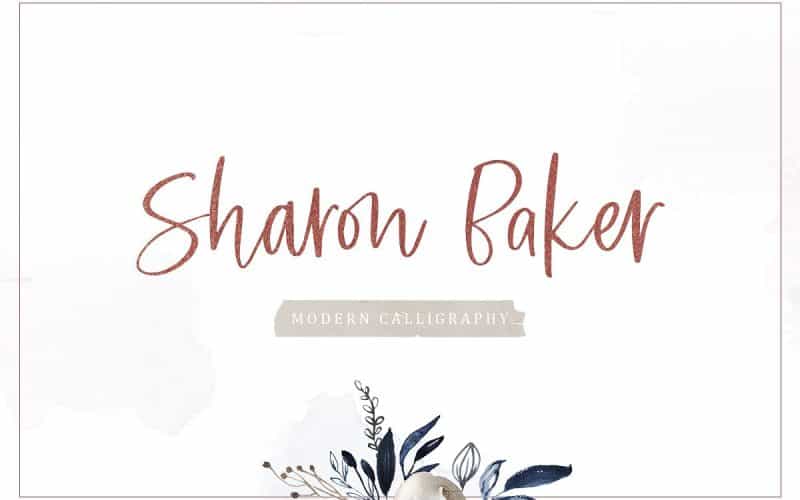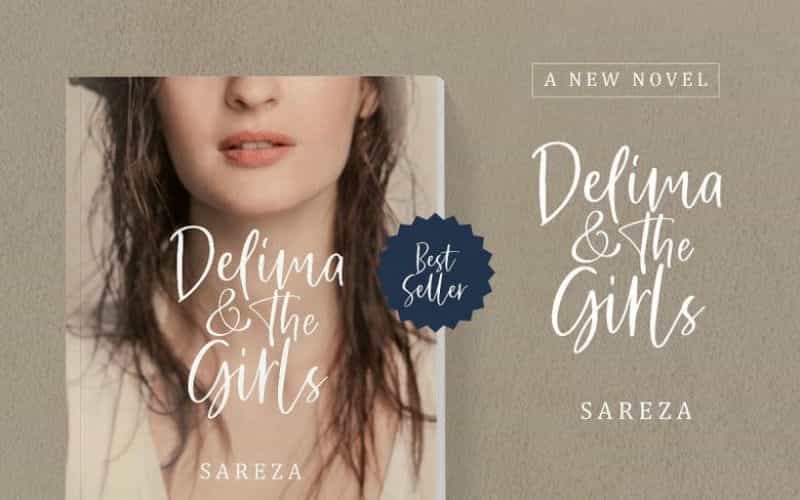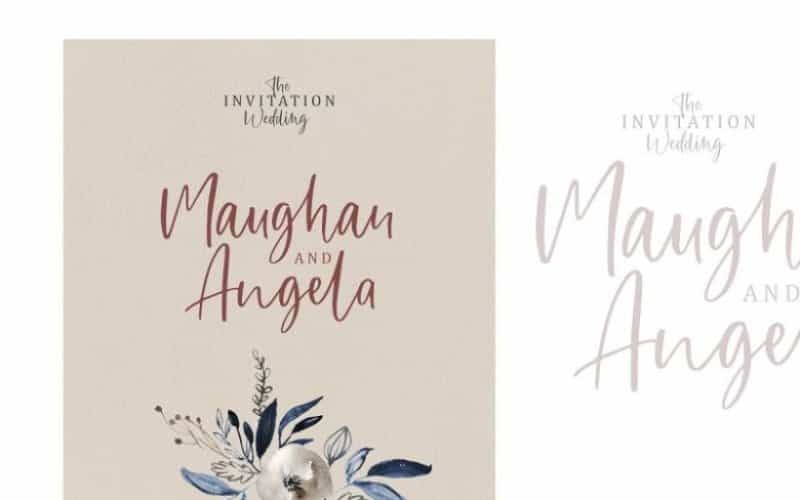
Sharon Baker wrote a modern script that brings a lovely feeling. The natural hand writing script is perfect for you who are looking for a typeface for a headline, logotype, apparel, invitation, branding, packaging, advertising etc. This typeface comes in uppercase, lowercase, punctuations, symbols & numerals, stylistic set alternate, ligatures, etc and also support multilingual.